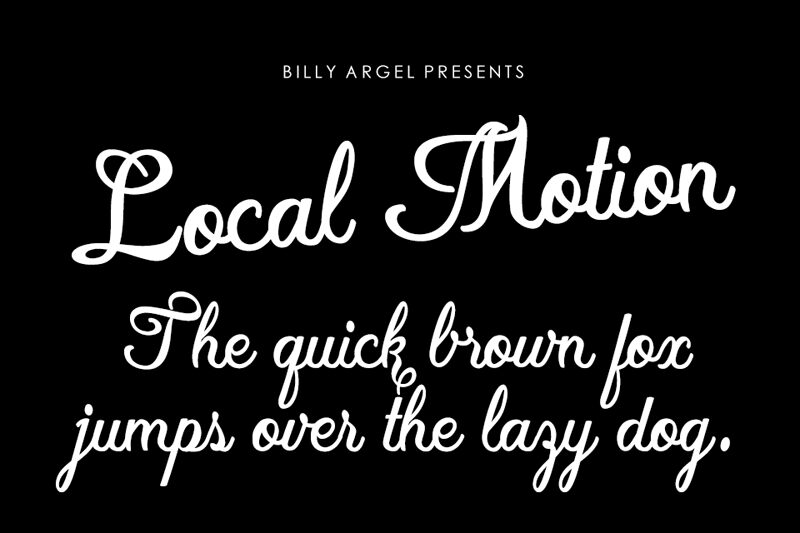
Local Motion by Billy Argel is a captivating calligraphic font that exudes a sense of effortless elegance. Its flowing, organic strokes create a mesmerizing visual rhythm, evoking the fluid movements of a dancer. The font's distinctive personality shines through in its graceful curves and playful ligatures, lending a touch of artistry to any design.
This versatile font can elevate a wide range of applications, from high-end branding and editorial layouts to creative stationery and invitations. Its calligraphic flair makes it an excellent choice for projects that require a touch of sophistication and individuality, allowing designers to seamlessly incorporate a touch of handcrafted charm into their work.